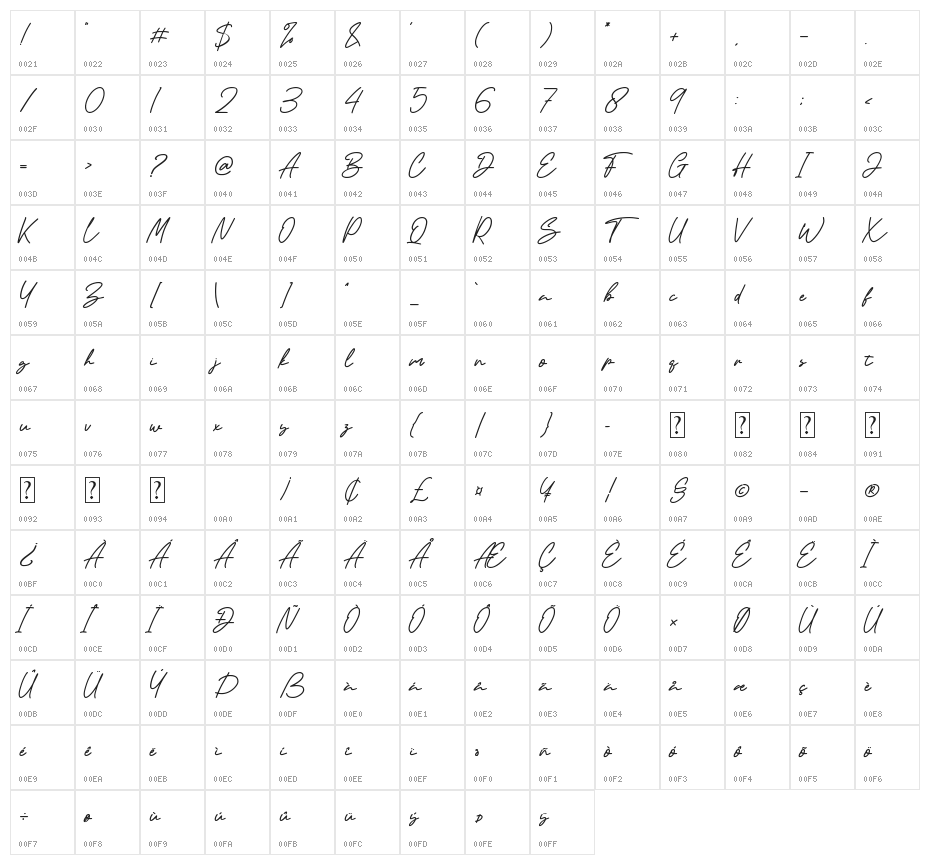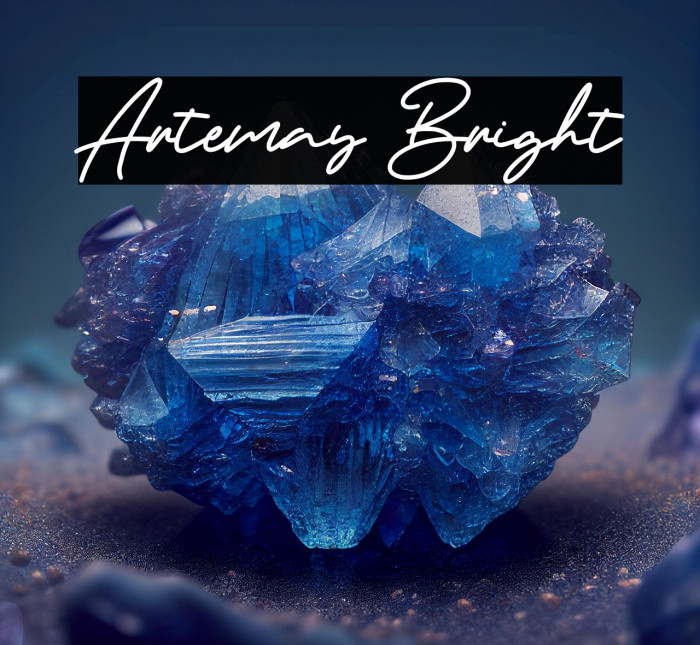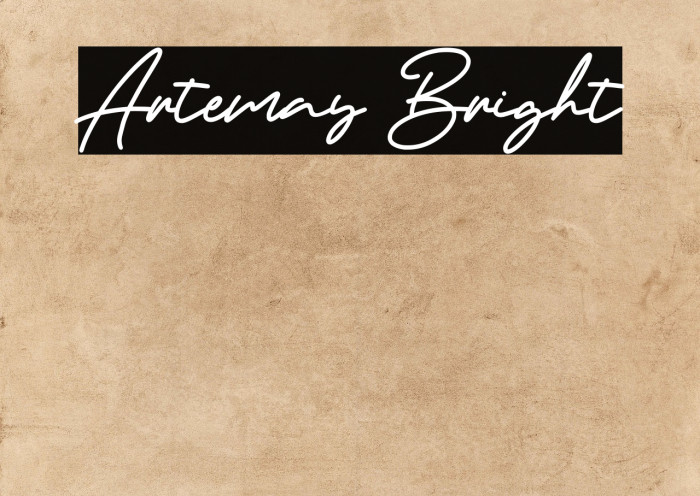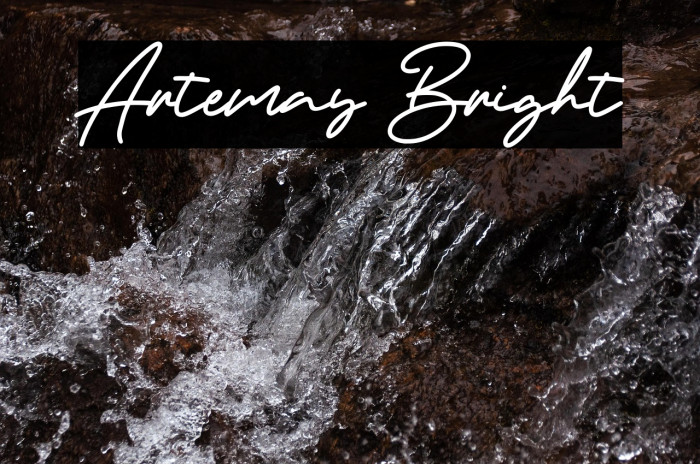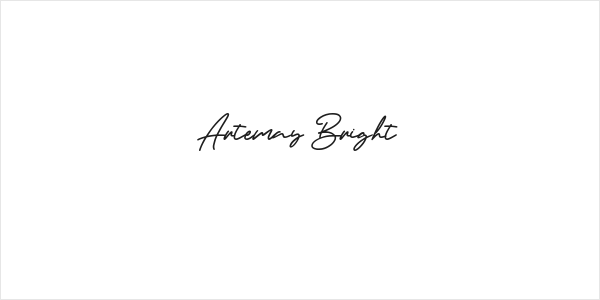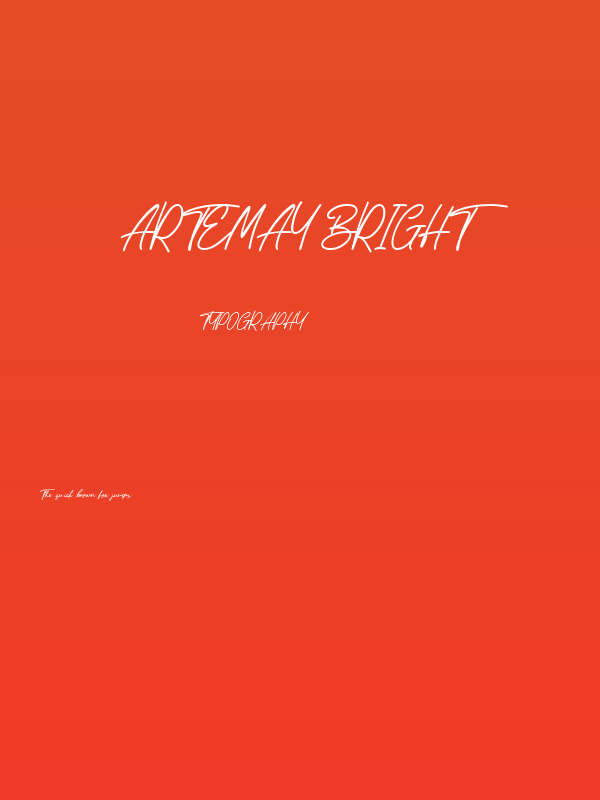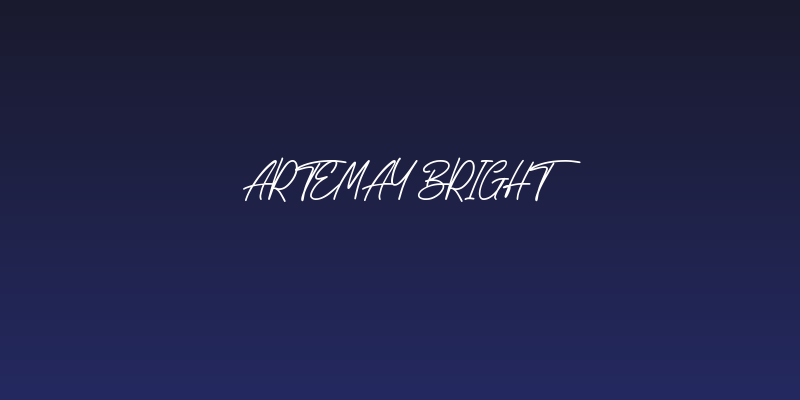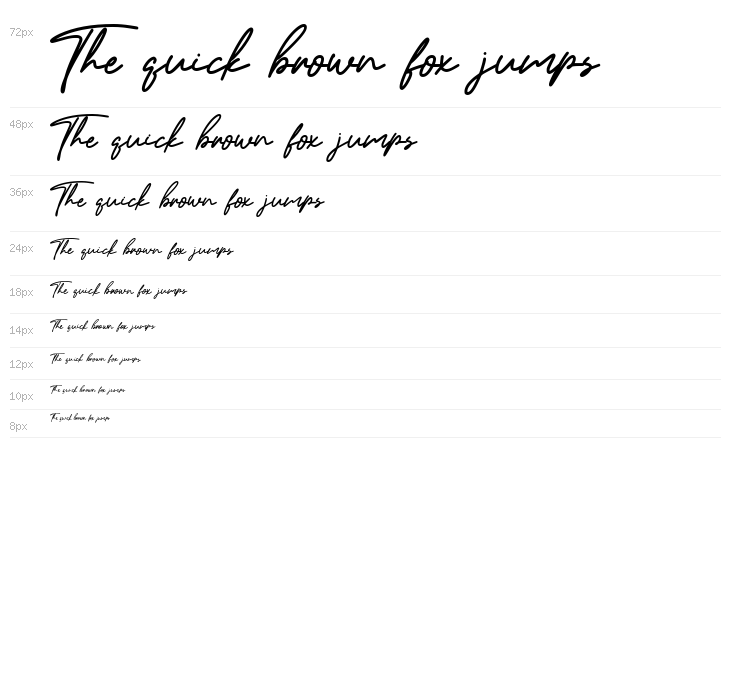
Artemay Bright Font
Artemay Bright Description
This font showcases a dynamic and fluid script style, characterized by its elegant and flowing letterforms. The uppercase letters are bold and sweeping, with a sense of movement and grace. The lowercase letters maintain a consistent style, offering a harmonious blend of curves and loops that enhance readability while retaining a decorative flair. The numerals are well-integrated into the overall design, maintaining the script's fluidity. Special characters are thoughtfully designed to complement the alphabet, ensuring a cohesive look across all text. The font's overall appearance is sophisticated and stylish, making it suitable for a variety of creative projects.